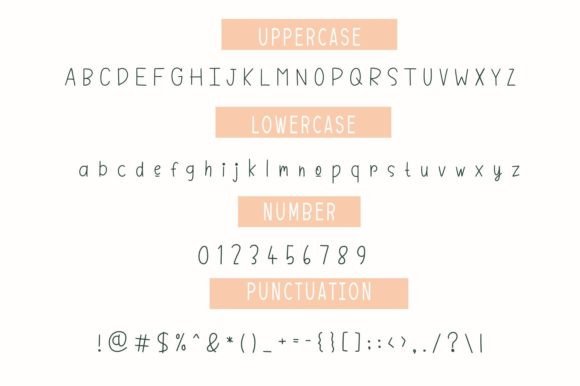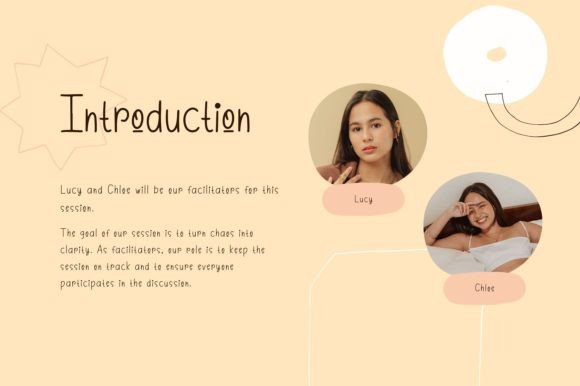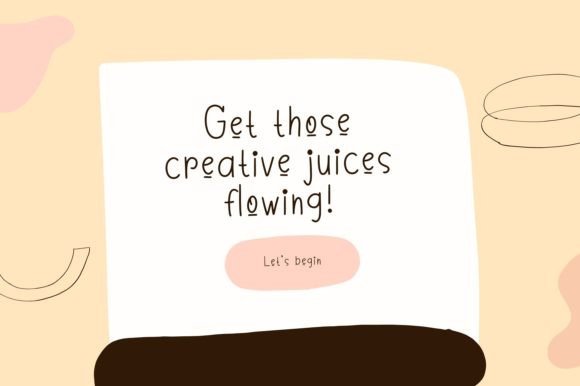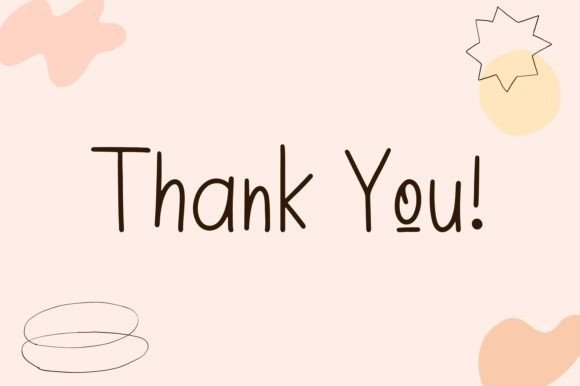
Crafting with Heart: The Charm of Cassandra Font
Have you ever sat down with a blank sheet of paper, a cup of coffee by your side, and let your imagination run wild? For designers, this moment of creative freedom is a treasure. The blank canvas is a chance to bring our ideas to life, and the right font can be the perfect partner in this journey. That’s where Cassandra Font comes in – a lovable, handwritten font that captures the essence of playfulness and authenticity.
With its light, airy characters, Cassandra Font is the perfect companion for a wide range of design projects. Whether you’re creating a children’s book, a wedding invitation, or a social media campaign, this font is sure to add a touch of whimsy and charm. Its versatility makes it a valuable asset for designers, allowing them to convey their message with ease and style.
Cassandra Font Key Features
- Font Family: Cassandra Font is a sans-serif font family designed by Jeremy Dooley.
- Unique Characteristics: Features a clean and modern design, with a focus on legibility and readability, making it suitable for digital and print media.
Cassandra Font Review
I recently had the chance to work with the Cassandra font, and I must say it’s a unique and interesting addition to any design project. ✨ Here are some of the things that stood out to me:
- Unique style**: Cassandra has a distinct, handwritten feel that sets it apart from more common font styles.
- High legibility**: Despite its cursive appearance, Cassandra is surprisingly easy to read, even at smaller font sizes.
- Wide language support**: Cassandra supports a wide range of languages, making it a great choice for international projects.
However, as with any font, there are some limitations to be aware of:
- Not ideal for body text**: While Cassandra is great for headlines and titles, it may not be the best choice for large blocks of body text due to its cursive nature.
- May require adjustments for digital use**: Some users have reported issues with the font’s rendering on certain devices or platforms.
Overall, I think the Cassandra font is a great choice for designers looking to add some personality to their projects. While it may have some limitations, its unique style and high legibility make it a worthwhile addition to any font collection.
Cassandra Font: A Practical Application Guide
The Cassandra Font is ideal for use in creative projects, such as:
– Magazine and newspaper titles
– Book covers and interior design
– Social media graphics and ads
– Web design and development